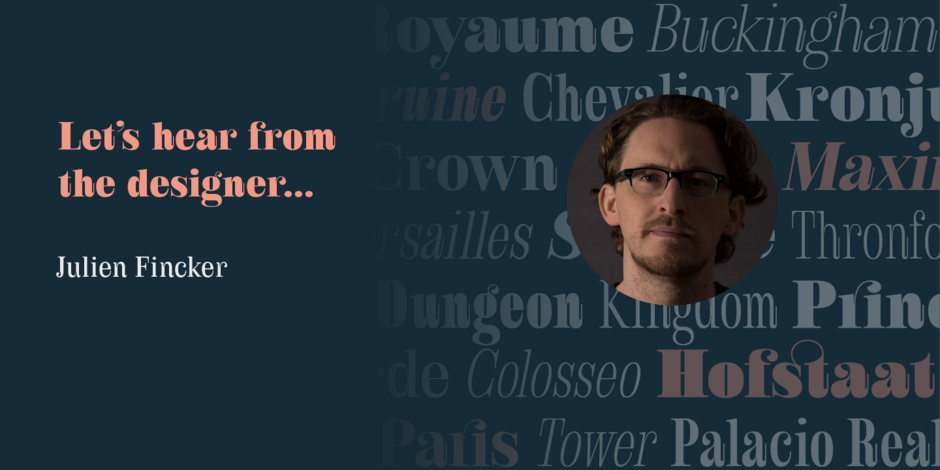
#14 Royalis by Julien Fincker
Q1: Where did the idea for the typeface come from? Did you set out to address a specific use or suite of the application? Was this a design you’d had in mind for a while?
Ans: The idea of creating Royalis was very experimental at the beginning. I wanted to draw a serif typeface with a strong personality – elegant and powerful. During the first sketches, I added playful elements like long terminals, cut ball serifs and deep inktraps, which gave the look a unique character. These dynamic elements made Royalis more and more extravagant and the association with the Musketeers grew. The different weights and styles complement each other like the three musketeers once did. Be it the charmingly elegant Aramis, the sober strategist Athos, the powerful ruffian Porthos or the charismatic d‘Artagnan, who led the group.
Q2: What should graphic communicators know about the typeface, or how will the family of fonts help them create better designs?
Ans: Right from the start, I wanted Royalis to be a very helpful and versatile typeface for every user. That’s why I decided to draw three versions – a display version, a shortened version and a text version. This means it can be used for large headlines as well as smaller text. So you can use just one typeface for a whole project and its various challenges instead of having to search for different suitable fonts. I also wanted Royalis to be very playful and fun for designers. That’s why I’ve added lots of ligatures, alternates and other interesting features to discover.